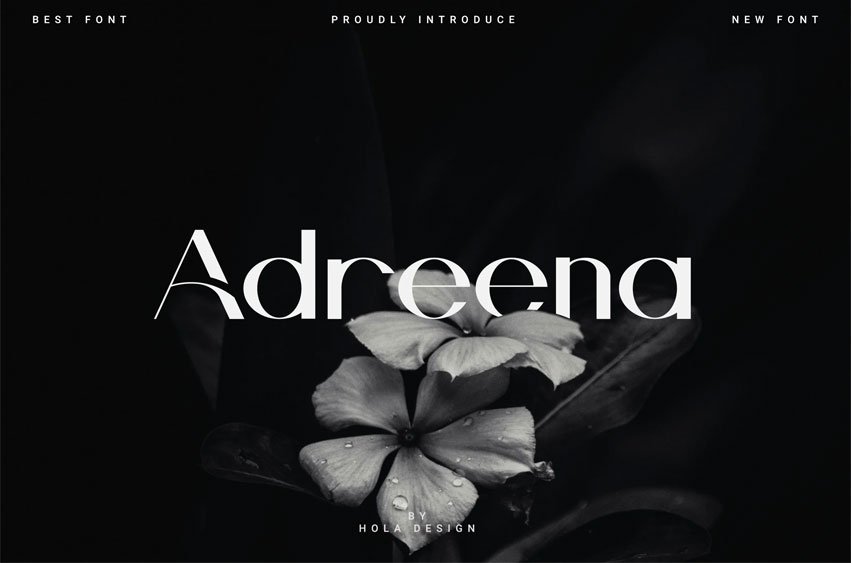
Adreena Font is decorative categories.
Ready to use for your design like labeling, movie sceen, poster, movie title, gigs, album covers, logos, and much more.